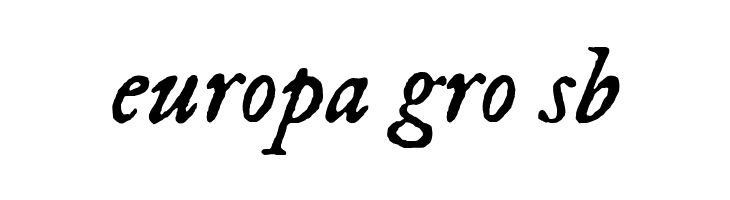
A classic, italicized font with elegant, flowing characters and historical charm.
IM FELL Double Pica Roman Font
A classic serif font with a historical and elegant design.
Dosis ExtraLight Font
A modern, extra-light sans-serif font with a geometric and minimalist design.
IM FELL English Italic Font
A classic, italic font with a hand-drawn, vintage English style.